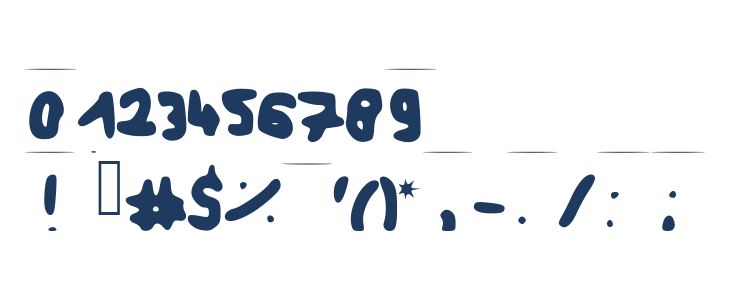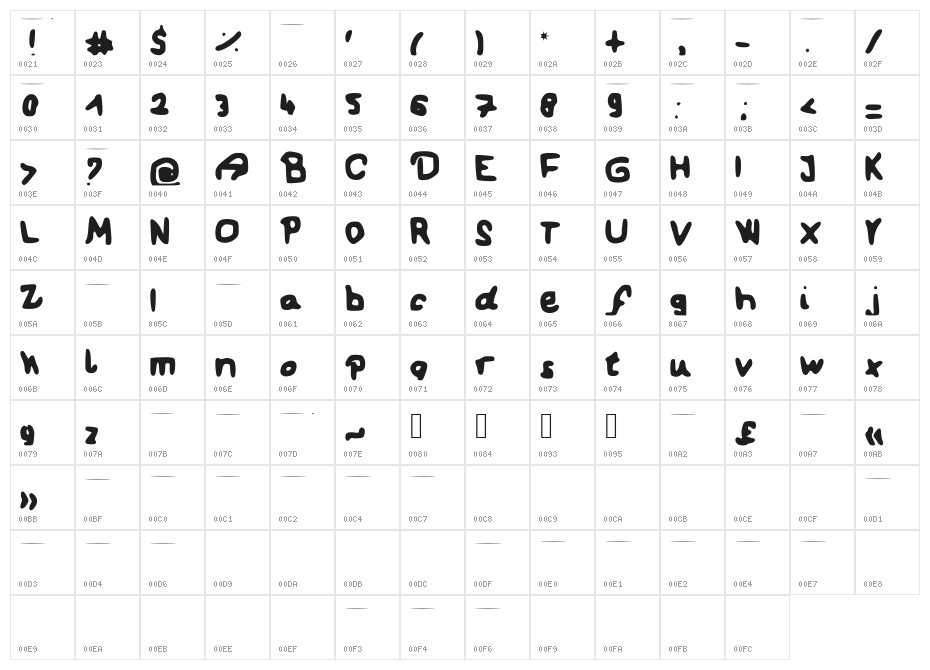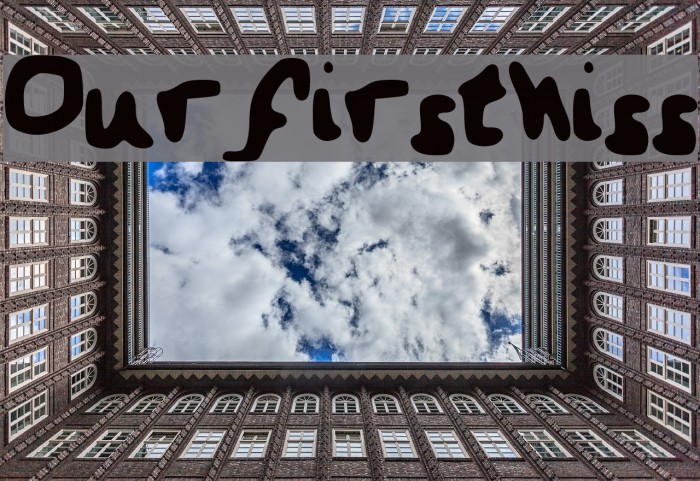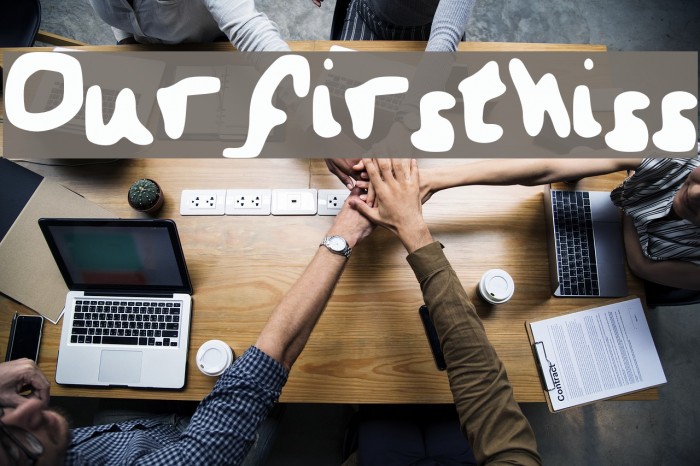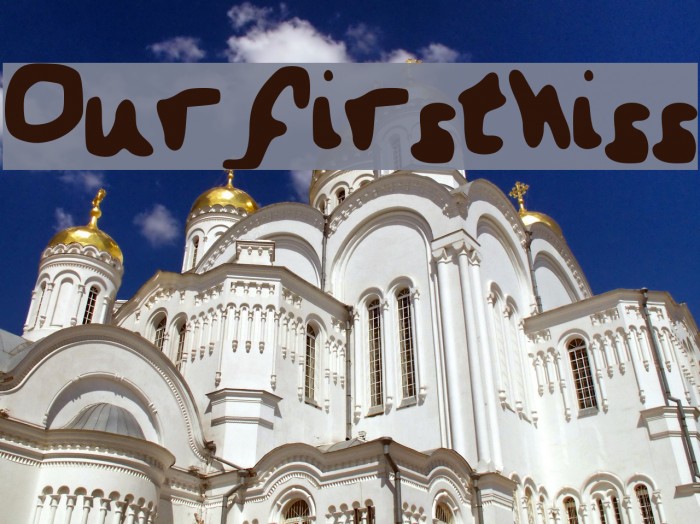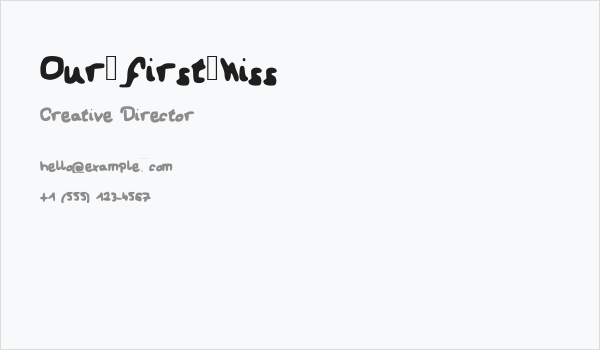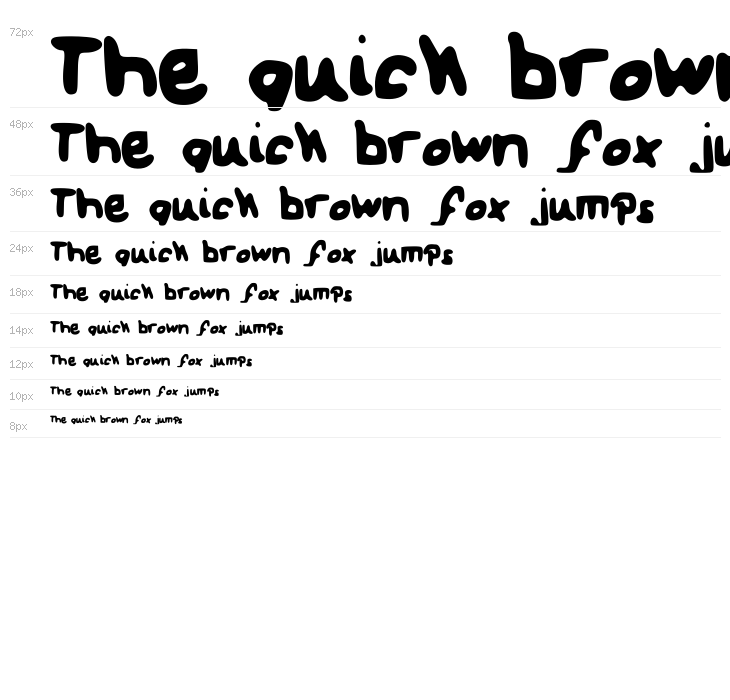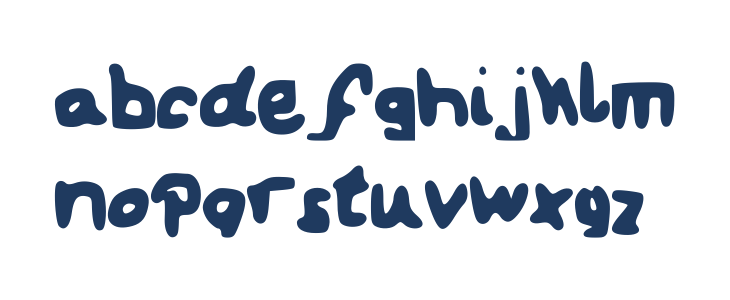
Our_first_kiss Font
Our_first_kiss Description
This playful and bold font features thick, rounded characters that exude a sense of fun and creativity. The letters have a hand-drawn appearance, with irregular shapes and varying stroke widths that add to its whimsical charm. The uppercase and lowercase letters maintain a consistent style, while the numbers and special characters are equally expressive, making this font suitable for a variety of creative projects. Its unique style is reminiscent of doodles or graffiti, perfect for capturing attention and conveying a lively, informal tone.
Overall StylePlayful, Whimsical
Proposed ProjectsIdeal for children's books, playful branding, posters, and creative social media graphics.